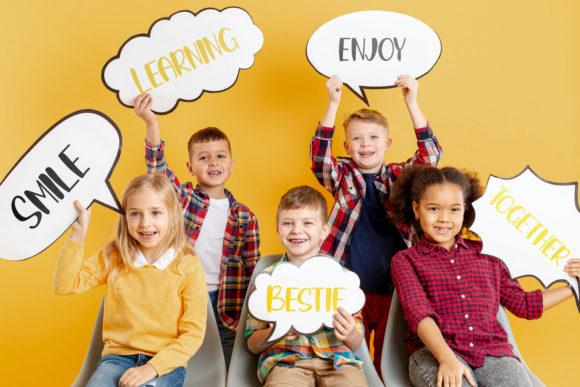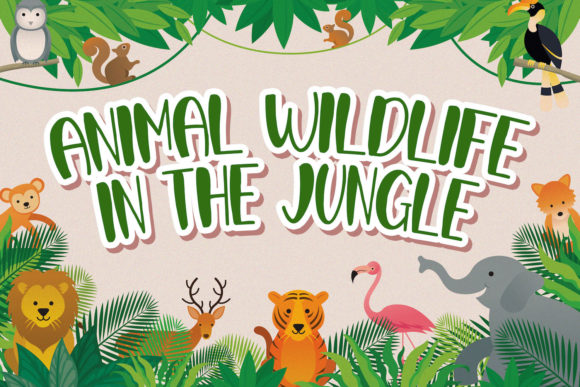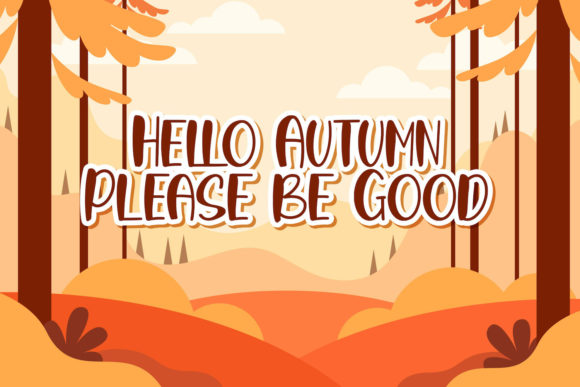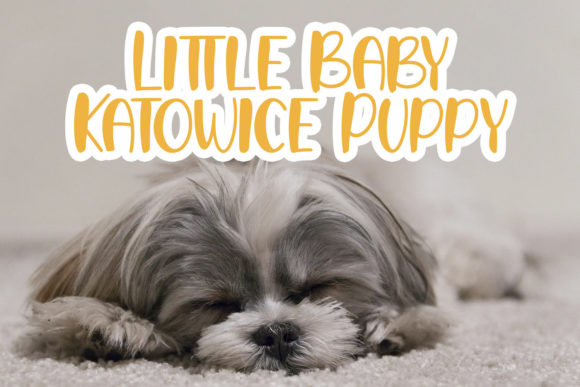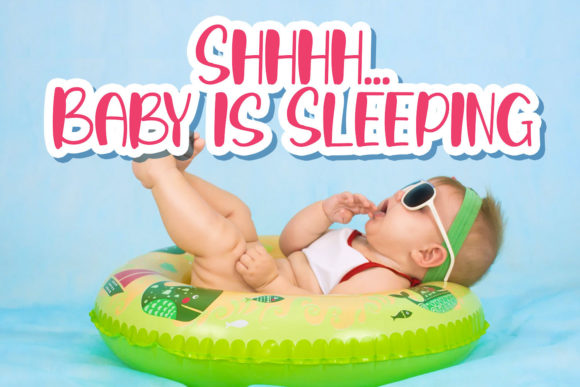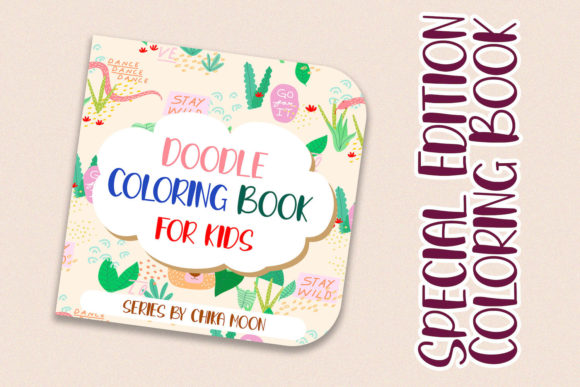
Introducing Edgar Wesley Font: The Fun and Playful Display Font for Creative Projects
Are you looking for a font that can add a touch of playfulness and freshness to your designs? Look no further than the Edgar Wesley font! This fun display font is perfect for a variety of creative projects, from children’s books and school assignments to apparel designs and games. In this article, we’ll take a closer look at the Edgar Wesley font and explore its features, uses, and benefits.
What is Edgar Wesley Font?
Edgar Wesley is a fun and playful display font that is designed to bring a sense of excitement and energy to your designs. With its bold and rounded letters, this font is sure to grab attention and make your projects stand out. Whether you’re working on a children’s book, a school project, or a craft design, Edgar Wesley is the perfect choice.
Key Features of Edgar Wesley Font
So, what makes Edgar Wesley font so special? Here are some of its key features:
- Playful and Fresh: Edgar Wesley font has a playful and fresh feel that makes it perfect for creative projects.
- Bold and Rounded Letters: The font features bold and rounded letters that are easy to read and fun to look at.
- Versatile: Edgar Wesley font can be used for a wide range of projects, from children’s books and school assignments to apparel designs and games.
- Easy to Read: Despite its playful feel, Edgar Wesley font is easy to read, making it perfect for body text and headings.
Uses of Edgar Wesley Font
Edgar Wesley font is a versatile font that can be used for a wide range of creative projects. Here are some ideas to get you started:
- Children’s Books: Edgar Wesley font is perfect for children’s books, with its playful and fun feel that kids will love.
- School Projects: Whether you’re working on a school assignment or a project for a class, Edgar Wesley font is a great choice.
- Apparel Designs: Add a touch of playfulness to your apparel designs with Edgar Wesley font.
- Games: Edgar Wesley font is perfect for games, with its bold and rounded letters that are easy to read.
- Craft Designs: Use Edgar Wesley font to add a personal touch to your craft designs, from scrapbooking to card making.
Benefits of Using Edgar Wesley Font
So, why should you choose Edgar Wesley font for your creative projects? Here are some benefits:
- Adds a Touch of Playfulness: Edgar Wesley font adds a touch of playfulness and freshness to your designs.
- Easy to Read: The font is easy to read, making it perfect for body text and headings.
- Versatile: Edgar Wesley font can be used for a wide range of projects, from children’s books to apparel designs.
- Makes Your Designs Stand Out: With its bold and rounded letters, Edgar Wesley font is sure to make your designs stand out.
Tips for Using Edgar Wesley Font
Here are some tips for using Edgar Wesley font:
- Use it for Headings: Edgar Wesley font is perfect for headings and titles, where you want to grab attention.
- Pair it with Other Fonts: Experiment with pairing Edgar Wesley font with other fonts to create a unique look.
- Use it for Body Text: While Edgar Wesley font is bold, it’s also easy to read, making it perfect for body text.
In conclusion, Edgar Wesley font is a fun and playful display font that is perfect for creative projects. With its bold and rounded letters, this font is sure to add a touch of excitement and energy to your designs. Whether you’re working on a children’s book, a school project, or a craft design, Edgar Wesley font is a great choice. So why not give it a try and see how it can elevate your designs?